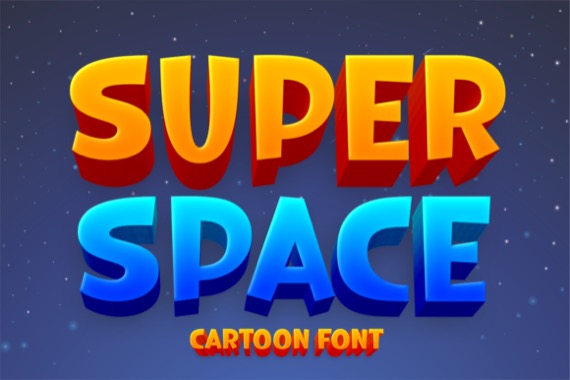
Super Space is a vintage-style and cool display font with a modern and thick lettered look. It embodies playfulness and authenticity and is the perfect choice for any children’s activity or school project. Add this lovely freebie to your creations and take your designs to the next level!
Super Space Display Font